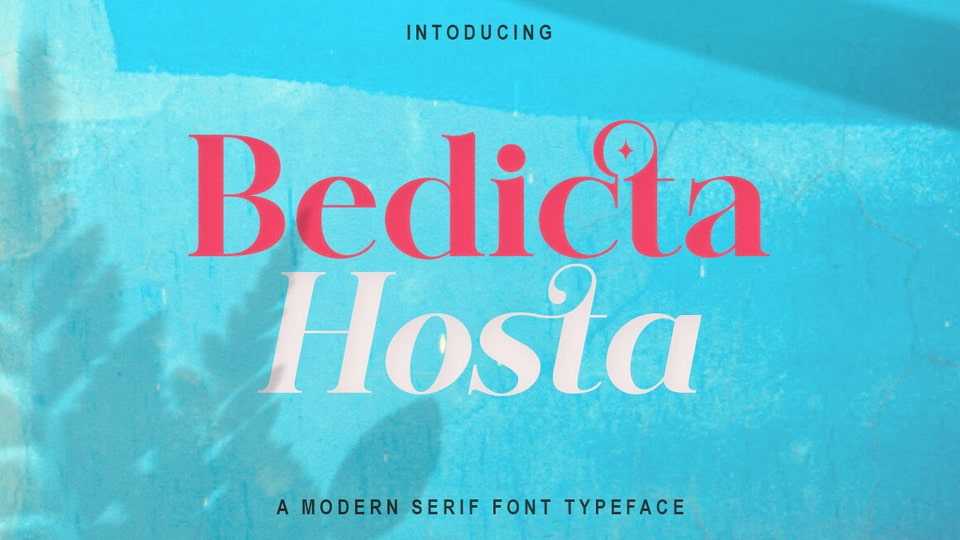
Download Bedicta Hosta font, a serif typeface that stands out with its classic and elegant style. This font features decorative elements on the edges of the letters.